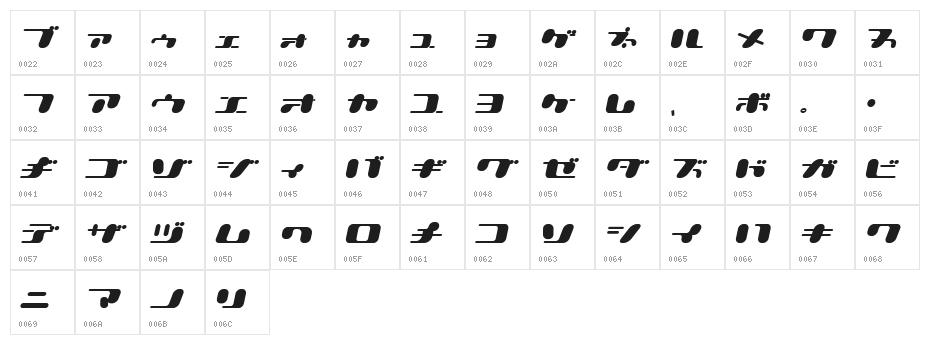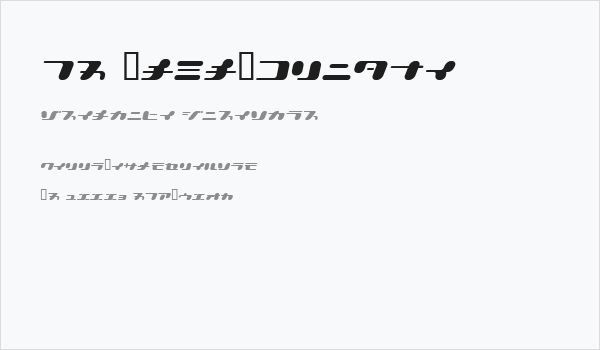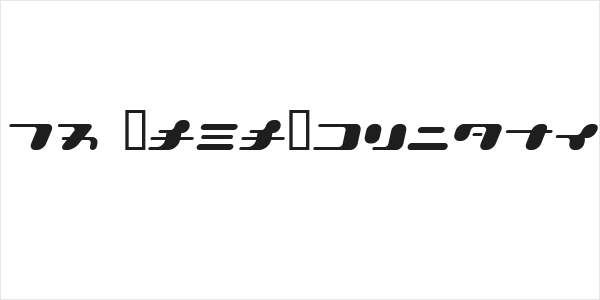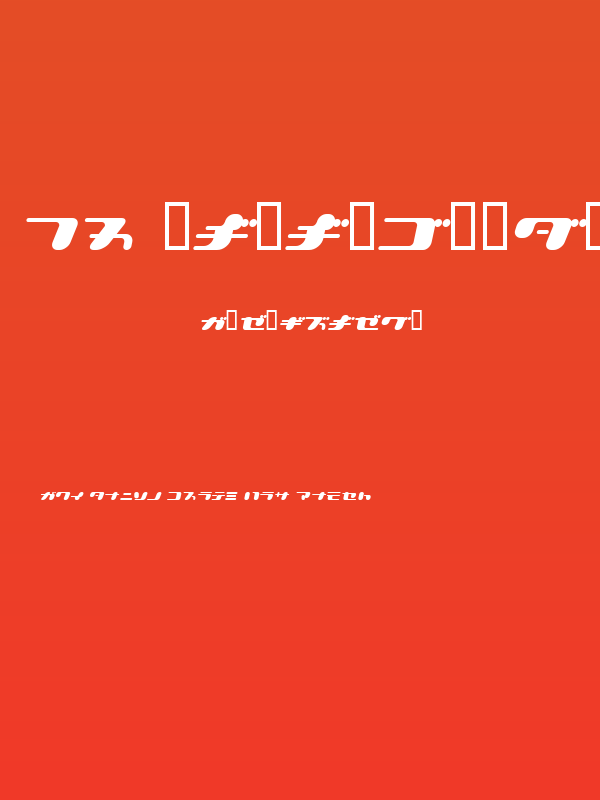
21 KanaOblique Font
21 KanaOblique Description
This font features a bold and dynamic style with a strong oblique slant, giving it a sense of motion and energy. The characters are thick and rounded, with a smooth flow that enhances readability while maintaining a unique, modern aesthetic. The strokes are consistent in weight, providing a uniform appearance across all characters. This font is particularly eye-catching, making it suitable for attention-grabbing headlines or creative design projects. Its distinct style is both playful and professional, offering versatility in various design contexts.
| Proposed Projects | Ideal for use in advertising, branding, posters, and digital media where a bold statement is needed. |